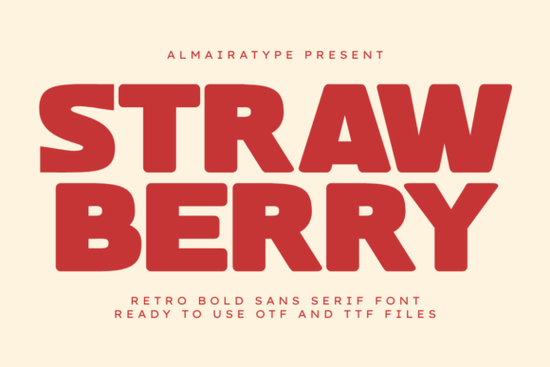
Straw Berry Font is a standout choice for anyone looking to add a touch of retro charm to their design projects. This bold, retro sans serif font blends the warmth of vintage aesthetics with a modern, high-impact look. Whether you're working on branding, apparel, or packaging, Straw Berry offers a unique balance of style and functionality that can elevate your creative work.
Designed with a thick, robust structure and playful contours, Straw Berry brings a friendly yet professional vibe to any design. Its clean vector outlines ensure compatibility with popular tools like Cricut and Silhouette, making it ideal for custom stickers, mugs, and other DIY projects. The font’s readability and versatility make it a go-to option for designers and crafters who want to create eye-catching visuals without compromising on quality.
If you're a print-on-demand seller or a small business owner, Straw Berry can help you stand out in a competitive market. Its nostalgic appeal pairs well with contemporary trends, allowing you to create merchandise that feels both familiar and fresh. From summer t-shirts to social media posters, this font adds a distinctive edge to your designs.
Why choose Straw Berry Font?
Straw Berry Font is more than just a stylish typeface it's a practical tool for creators across different industries. Its retro-inspired design makes it perfect for food brands, clothing lines, and packaging layouts that aim to capture attention. The font’s boldness ensures it remains legible even at smaller sizes, while its playful curves add a sense of approachability to your work.
For independent designers and craft lovers, Straw Berry offers a way to express creativity without sacrificing professionalism. It works well in both digital and physical formats, making it a reliable addition to your design toolkit. Whether you're creating a logo or designing a poster, this font provides the flexibility needed to meet various project requirements.
How to use Straw Berry Font effectively
When using Straw Berry Font, consider the context of your project. For example, it works well as a headline or title due to its bold and eye-catching nature. Pair it with simpler fonts for body text to maintain visual balance. This approach helps prevent the design from becoming too overwhelming while still keeping the retro vibe intact.
Try experimenting with different color schemes to see how the font interacts with various backgrounds. Its warm tones complement pastel shades, earthy hues, and vibrant colors alike. This adaptability makes it a versatile choice for a wide range of design styles.
Whether you're a designer, crafter, or small business owner, Straw Berry Font is a valuable asset that can enhance your work. Its blend of nostalgia and modernity makes it a versatile choice for a variety of projects. By incorporating this font into your designs, you can add a unique personality that sets your work apart.
Before finalizing your design, test the font in different sizes and formats to ensure it meets your expectations. Consider how it looks on both digital and printed materials, and adjust your layout accordingly. This attention to detail can make a big difference in the overall impact of your work.
Remember, the goal is to create something that not only looks good but also communicates your message effectively. Straw Berry Font can help you achieve that balance, providing a stylish yet functional solution for your creative projects.
As you continue to explore design possibilities, keep an open mind and experiment with different fonts and styles. You never know what unexpected combinations might lead to your next great idea. With the right tools, like Straw Berry Font, you can bring your vision to life with confidence and creativity.
Take a moment to review your current design projects and think about where you could incorporate a font like Straw Berry. Even small changes can have a big impact, so don’t hesitate to try something new. Your audience will appreciate the effort and uniqueness that comes with thoughtful design choices.
By using Straw Berry Font, you’re not just adding a typeface you’re enhancing the overall quality and appeal of your work. Whether you're creating for personal enjoyment or commercial purposes, this font can help you achieve a professional and engaging result.